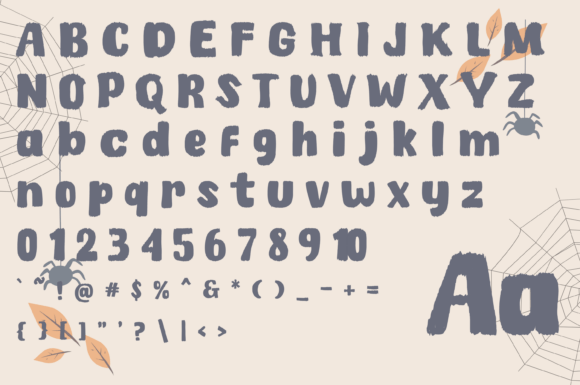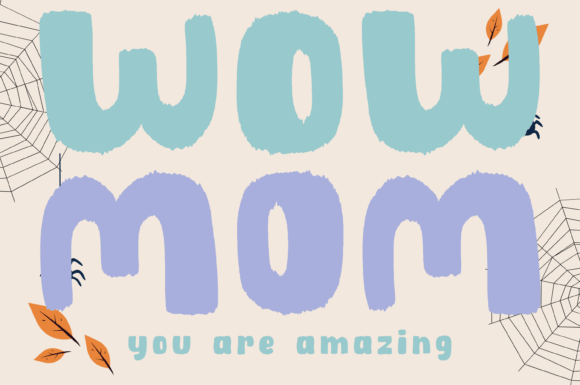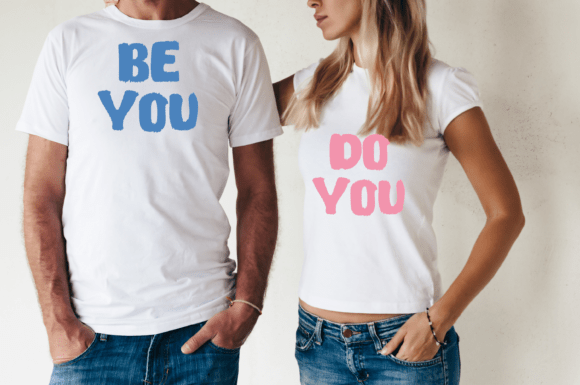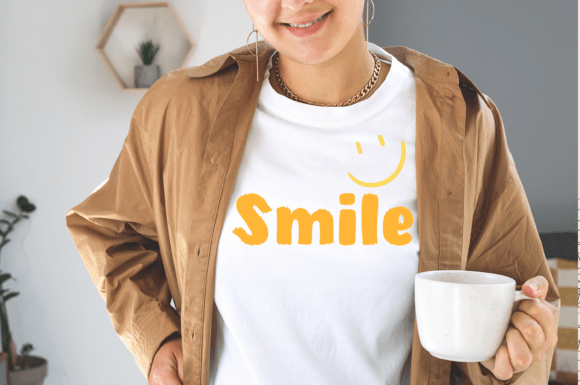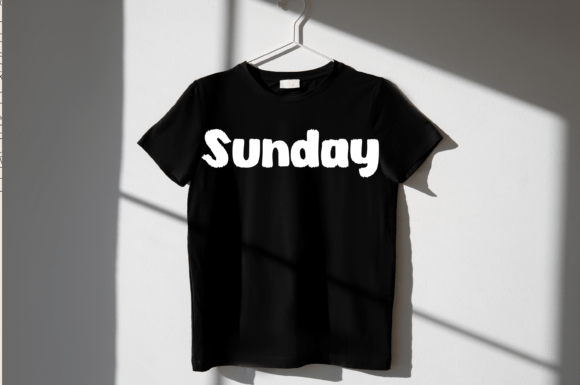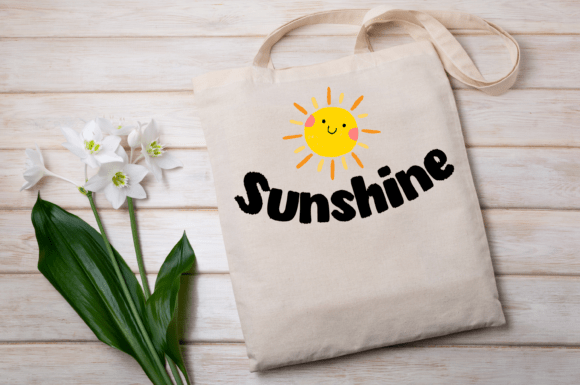
Unleash the Spooky Charm with Haunted Inkbrush Font
Are you ready to add a touch of eerie elegance to your designs? Look no further than the Haunted Inkbrush Style Display Font, a bold, rough, and brush-style lettering that exudes a lively and organic feel. This playful and expressive typeface is perfect for designers and crafters seeking to create eye-catching headlines, artistic compositions, and seasonal designs that scream to be noticed.
The Haunted Inkbrush Style: A Unique Display Font
The Haunted Inkbrush Style Display Font boasts rough, hand-painted edges that give it a unique and captivating texture. The uneven strokes resemble brush lettering, making it an ideal choice for designers who want to add a personal touch to their work. This font’s bold and expressive style is perfect for posters, street art designs, comic-style graphics, event titles, and any creative project that requires a strong visual impact.
Key Features of Haunted Inkbrush Font
- Bold and Expressive: The Haunted Inkbrush Style Display Font is designed to make a statement. Its bold and expressive style ensures that your designs grab attention and leave a lasting impression.
- Rough, Hand-Painted Edges: The font’s rough, hand-painted edges give it a lively and organic feel that’s perfect for designs that require a personal touch.
- Uneven Strokes: The uneven strokes in the Haunted Inkbrush Style Display Font resemble brush lettering, adding a touch of authenticity to your designs.
- Casual Charm: This font blends casual charm with bold readability, making it ideal for eye-catching headlines and artistic compositions.
Ideal Uses for Haunted Inkbrush Font
The Haunted Inkbrush Style Display Font is perfect for a variety of design projects, including:
- Posters: Add a touch of drama and flair to your posters with this bold and expressive font.
- Street Art Designs: The Haunted Inkbrush Style Display Font is perfect for street art designs that require a strong and edgy visual impact.
- Comic-Style Graphics: Bring your comic-style graphics to life with this playful and bold font.
- Event Titles: Make your event titles stand out with the Haunted Inkbrush Style Display Font’s unique and captivating texture.
- Seasonal Designs: This font is perfect for seasonal designs, particularly for Halloween and Autumn-themed projects.
Tips for Using Haunted Inkbrush Font
To get the most out of the Haunted Inkbrush Style Display Font, follow these tips:
- Use for Titles and Headlines: The Haunted Inkbrush Style Display Font is best used for titles and headlines rather than body text.
- Experiment with Colors: Try pairing the font with bold and vibrant colors to add an extra layer of drama to your designs.
- Mix and Match: Combine the Haunted Inkbrush Style Display Font with other fonts to create a unique and eye-catching visual effect.
The Haunted Inkbrush Style Display Font is a bold, rough, and brush-style lettering that’s perfect for designers and crafters seeking to add a touch of spooky charm to their designs. With its unique texture, bold readability, and casual charm, this font is ideal for posters, street art designs, comic-style graphics, event titles, and seasonal designs. So why wait? Unleash the spooky charm of the Haunted Inkbrush Font and take your designs to the next level!